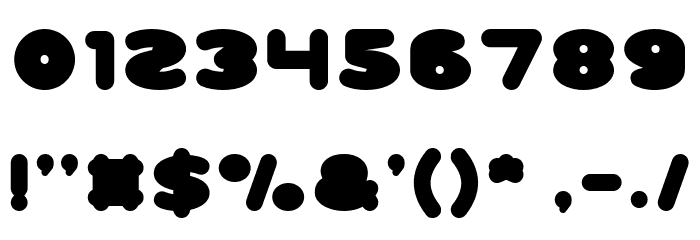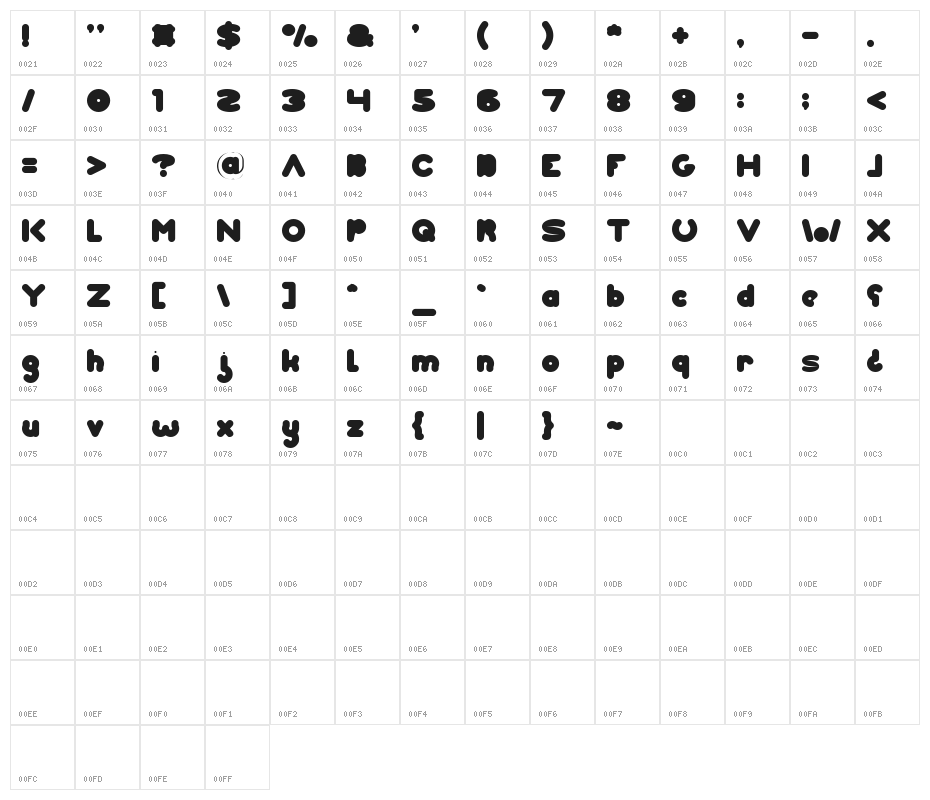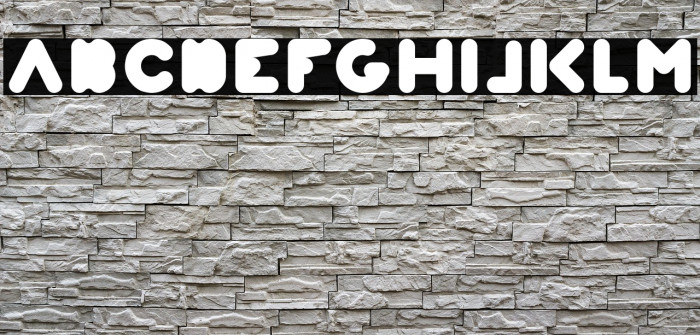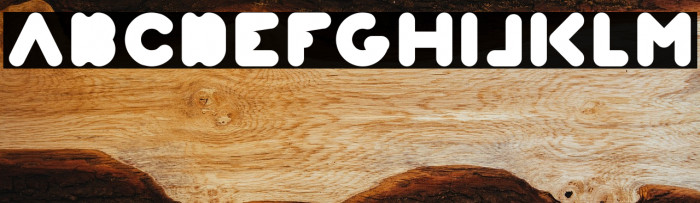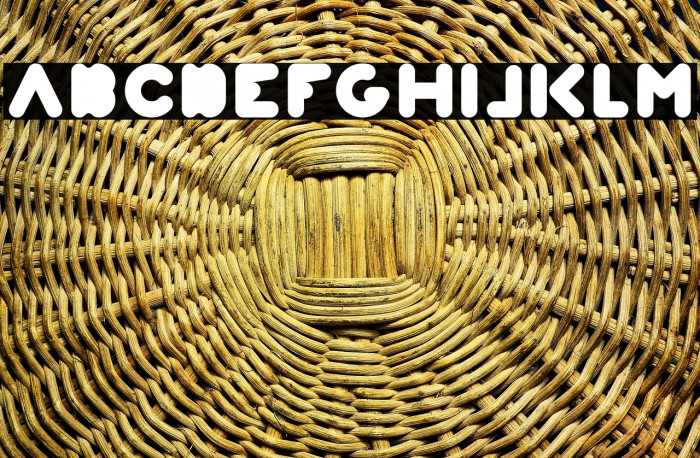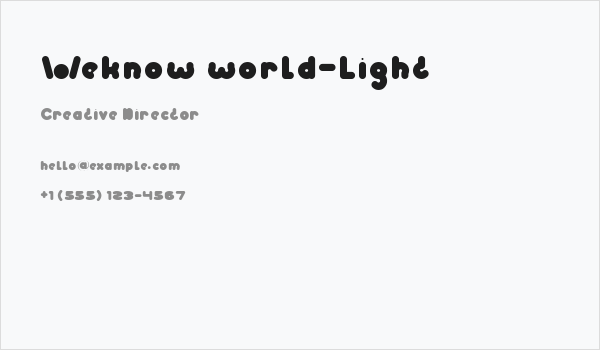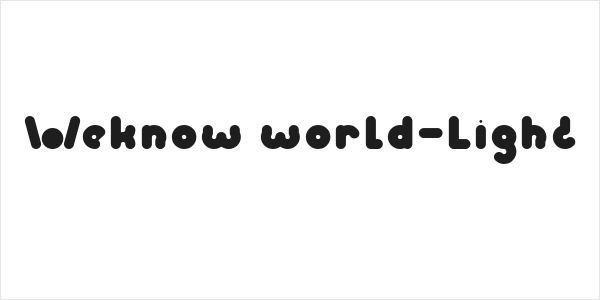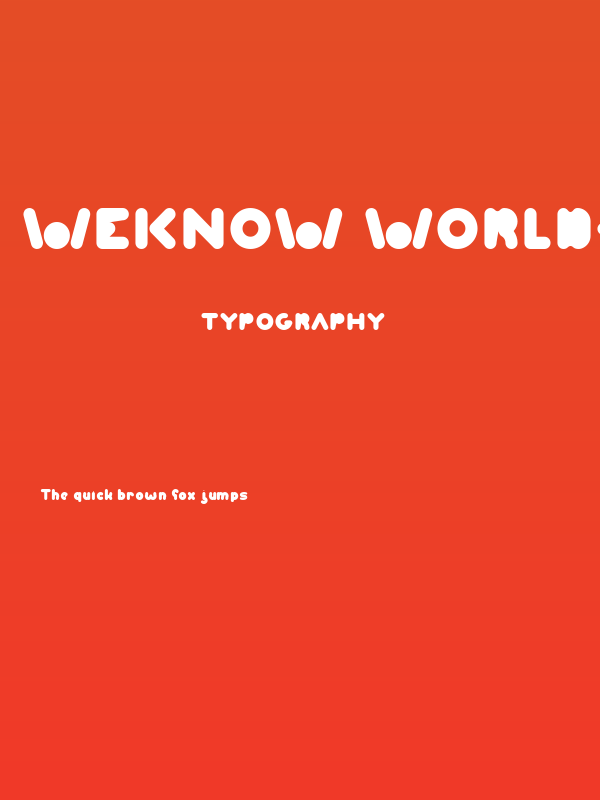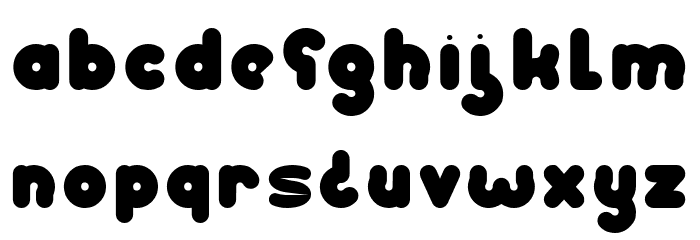
Weknow world-Light Font
Weknow world-Light Description
This font features a playful and bold design with rounded edges and a bubbly appearance. Each character is crafted with a consistent thickness, giving it a cohesive look. The uppercase and lowercase letters maintain a uniform style, while the numbers and special characters complement the overall design. The font's unique style makes it stand out, with a whimsical and friendly vibe that is both eye-catching and approachable. Its boldness ensures that it captures attention, making it suitable for various creative applications.